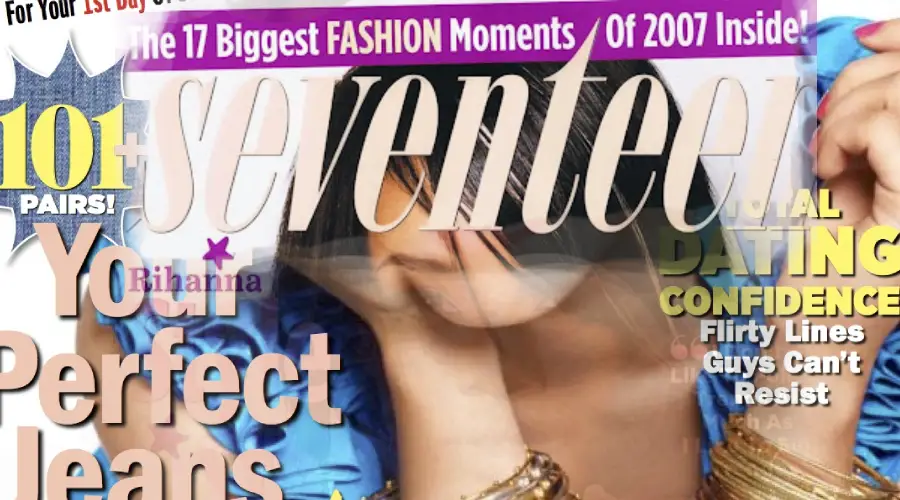
The Seventeen font is prominently associated with Seventeen magazine, a leading American publication targeting teenage girls since its inception in 1944. The magazine’s logo utilizes the Arsis Italic typeface, a modern serif font crafted by Gerry Powell in 1937.
This font closely resembles the magazine’s logo and serves as a suitable replica.